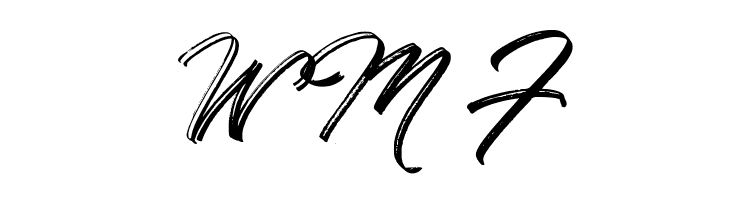
An elegant script font with intricate swirls and decorative flourishes.
A modern, elegant script font with flowing curves and loops.
An elegant, decorative script font with intricate swirls and artistic flourishes.
A playful and elegant script font with flowing, cursive letterforms.
An elegant, flowing script font with interconnected characters and graceful curves.
A flowing, cursive font with elegant, thin strokes and dynamic flair.
A dynamic and fluid script font with elegant, flowing letterforms.
A decorative and whimsical font with elegant, swirling serifs and artistic flair.
An artistic and decorative font with flowing, interconnected strokes and elegant swirls.
A dynamic and flowing script font with elegant, artistic curves.
A flowing, cursive script font with elegant curves and loops.
A whimsical and artistic font with flowing, exaggerated curves and strokes.
A playful and elegant cursive font with interconnected, flowing letters.
A whimsical, artistic font with flowing, cursive-like strokes and playful loops.
An elegant and flowing script font with graceful loops and smooth cursive strokes.
An elegant, cursive script font with flowing, ornate characters.
An elegant script font with dramatic flourishes and high contrast strokes.
A lively and elegant script font with flowing, cursive letterforms.
An elegant script font with flowing, interconnected letters and decorative flourishes.
An ornate and decorative font with elaborate swirls and flourishes.
A flowing, cursive font with elegant loops and swashes.
A playful and artistic handwritten font with dynamic strokes and creative flourishes.
An elegant and decorative script font with ornate swirls and loops.
An elegant, cursive font with flowing lines and ornate details.
A lively and expressive script font with flowing, cursive letterforms.
An elegant and sophisticated script font with flowing, interconnected letterforms.
An elegant and flowing script font with ornate uppercase letters and smooth lowercase connections.
An elegant script font with decorative swirls and flowing lines.
A dynamic brush script font with bold, fluid strokes and a lively, hand-drawn quality.
An elegant script font with intricate loops and modern calligraphic style.
An elegant, cursive font with flowing curves and ornate flourishes.
An elegant, flowing script font with graceful curves and continuous strokes.
A flowing, cursive font with elegant and artistic flair.
An elegant script font with intricate swashes and flowing letterforms.
A dynamic and expressive handwritten font with fluid, energetic strokes.